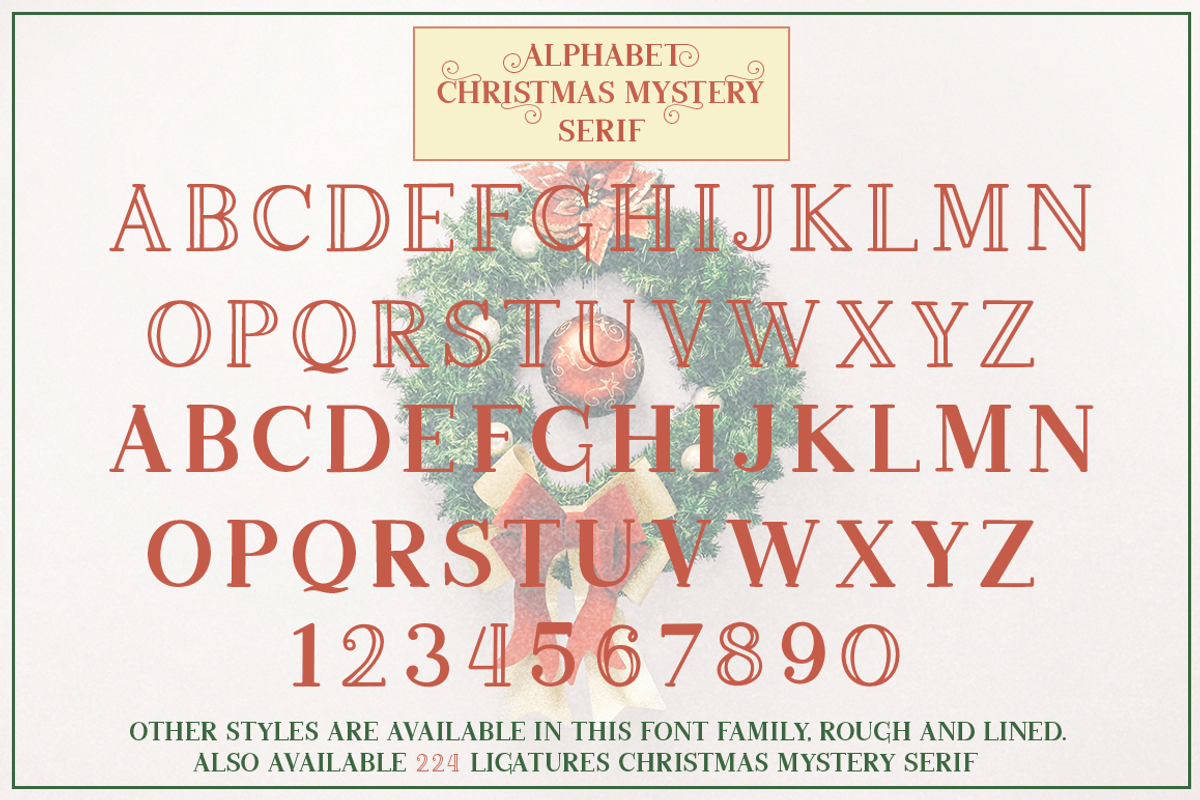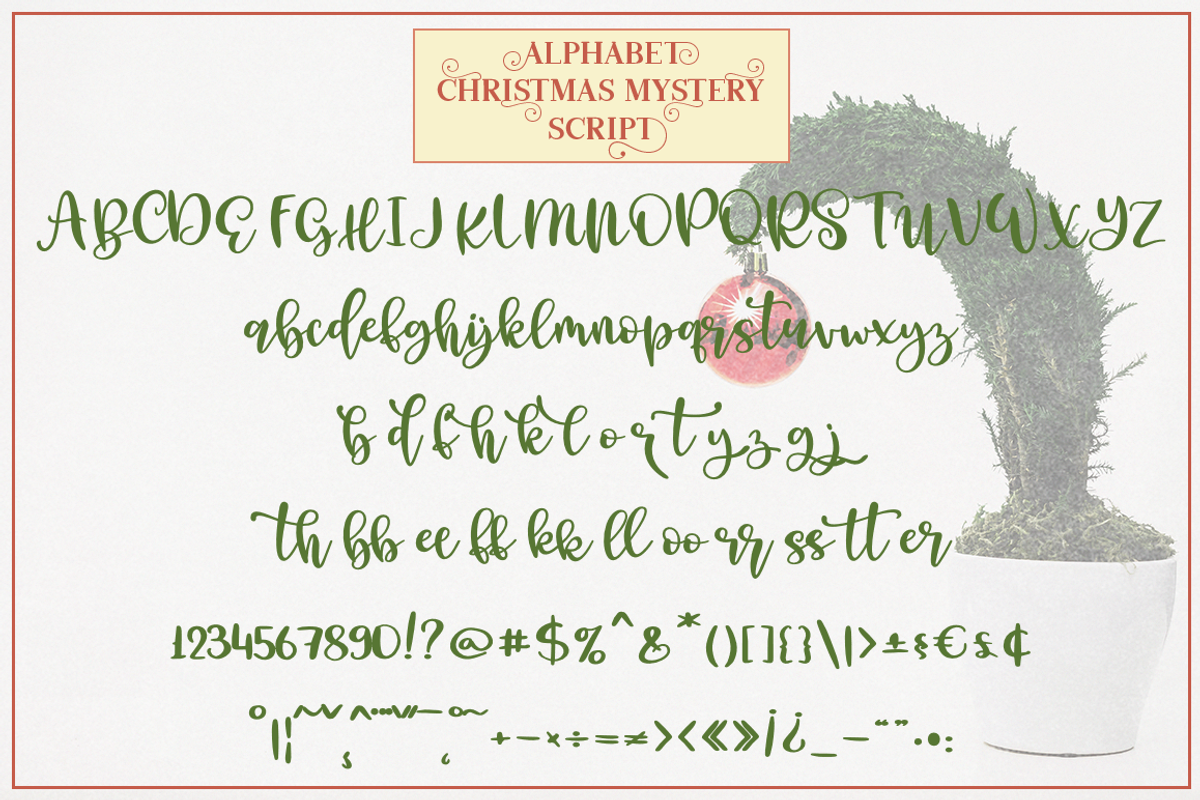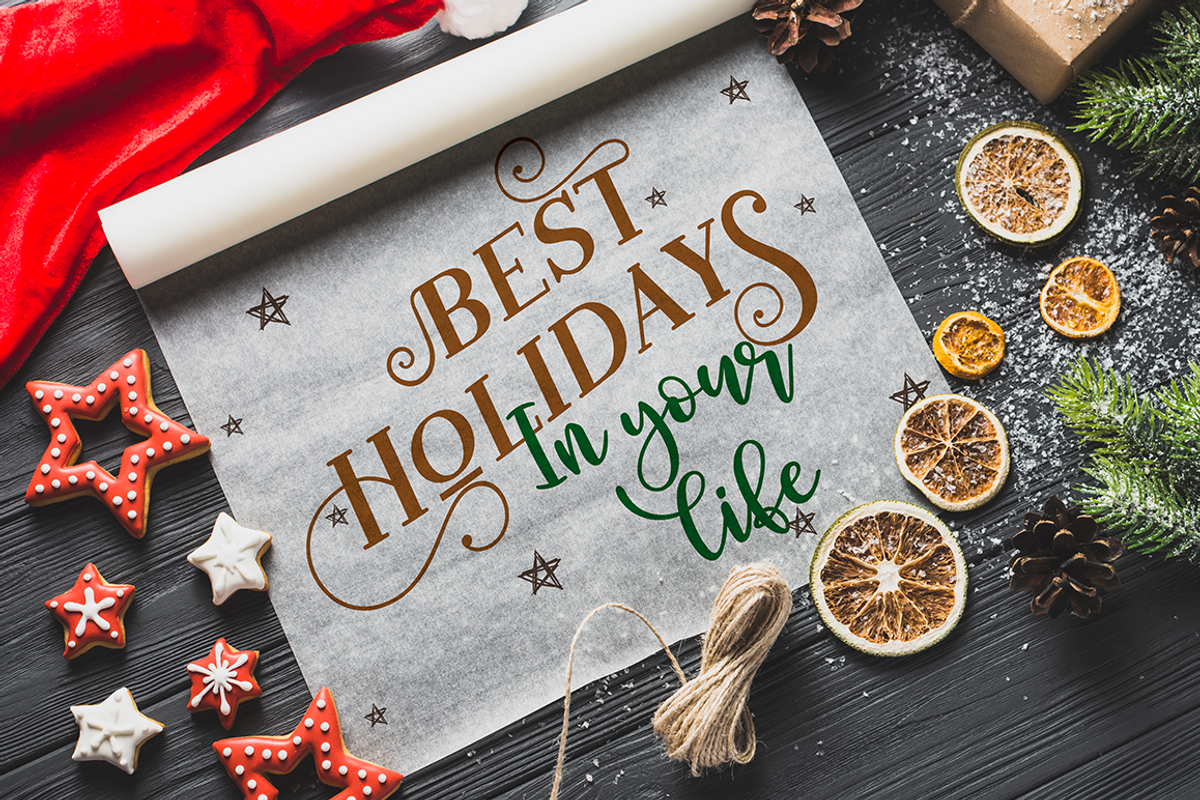
Christmas Mystery
Christmas mystery- a new fresh handmade font family.
This fonts is ideal for branding and decorate your any project. Also with their help, you can create a logo or beautiful frame for your home. Or just use for your small business, book covers, stationery, marketing, blog, magazines and more.